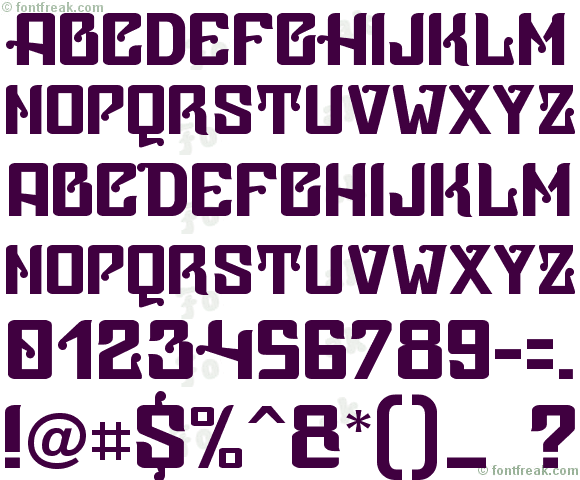
Vice Presidente
Vice Presidente by Levi is a striking display font that captures attention with its unique character and flair. Designed in 2001, this freeware font exemplifies boldness through its thick stroke weight and substantial contrast, making it a standout choice for various design projects. The font features a distinct blocky structure with playful decorative elements, such as rounded edges and slight flourishes, which give it a modern yet timeless appeal. Its spacing is well-considered, allowing for readability while still maintaining a strong visual presence.
The Vice Presidente font is ideal for a range of creative applications. Its eye-catching style makes it perfect for movie posters, where it can convey drama and excitement. Additionally, it suits restaurant menus, where the boldness can help highlight featured dishes or special promotions. For event planners, this font can elevate wedding invitations, adding a touch of sophistication and fun. Small business owners will find it useful for branding and promotional materials, as it commands attention and leaves a lasting impression. Content creators can also leverage its unique aesthetic for social media graphics and marketing campaigns.
Targeting graphic designers, small business owners, and content creators alike, Vice Presidente offers versatility and impact. Its ability to convey a sense of personality and energy makes it a go-to option for anyone looking to make a statement in their designs. The Vice Presidente font free download allows you to explore its creative potential without any financial commitment, inviting you to experiment with this bold typeface in your projects. Its unique combination of style, clarity, and creativity is what sets Vice Presidente apart, making it an essential addition to any designer's toolkit.